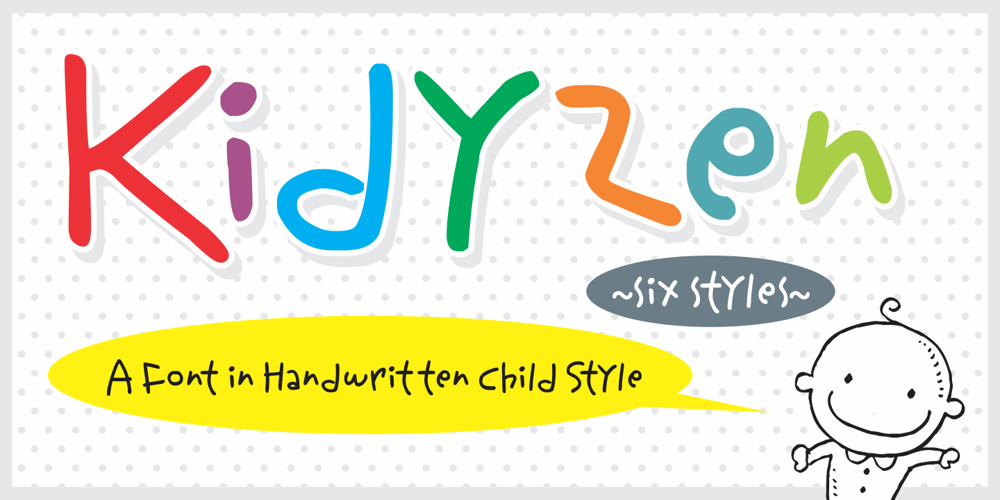
Kidyzen
Kidyzen font
Kidyzen Font Family was designed by Muhammad Nazarudin and published by Niznaztype. Kidyzen contains 6 styles and family package options. Kidyzen is a sans handwritten typeface. Inspired from the character of kids writing in their book. Kidyzen have unique style because it like same with typing of children.Kidyzen is perfect for comic, illustration, cartoon, kids design and very suitable for speech bubble text. It have very fun, cute, easy communication, easy reading and unique styles. You can use it for kids t-shirt, cover book, tagline, poster, branding, advertising, wall painting letter and graphic designs that use kids character .Kidyzen have 6 styles, there are regular, italic, bold, bold italic, thin and thin italic. Be enjoy it with my fonts.